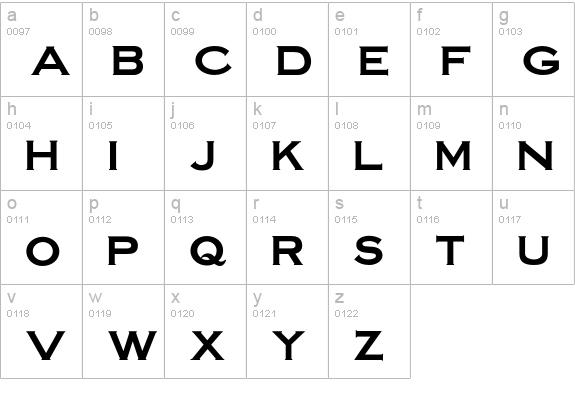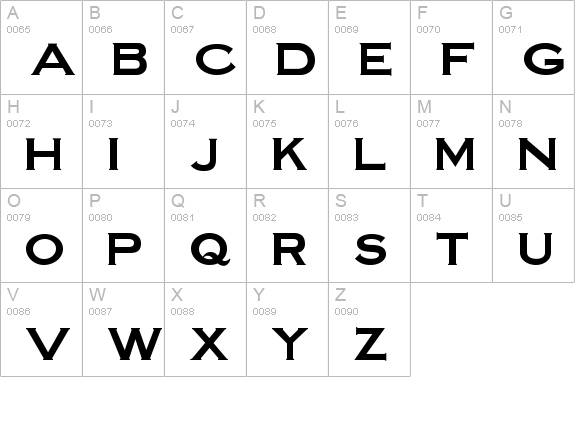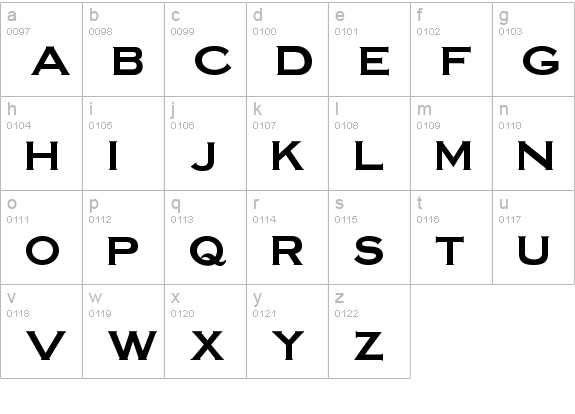
SteelplateGothicBold Font Details
SteelplateGothicBold is a striking and bold font that exudes strength and power. Its clean and angular lines give it a modern and industrial feel, making it perfect for designs that require a strong and assertive presence. The thick strokes of this font make it highly legible, ensuring that your message will be conveyed with clarity and impact. But what sets SteelplateGothicBold apart is not just its boldness, but also its availability. This font is freely available to download at FontsMarket.com, allowing designers, creatives, and enthusiasts alike to access and utilize its captivating features without any cost. Whether you need to create eye-catching posters, attention-grabbing headlines, or powerful logos, SteelplateGothicBold is a versatile and reliable choice that won't break the bank. So why settle for ordinary fonts when you can have a font that combines strength, style, and freedom? With SteelplateGothicBold, you can take your designs to new heights and make a bold statement without spending a dime. Download it now from FontsMarket.com and unleash the power of this exceptional font in your projects.